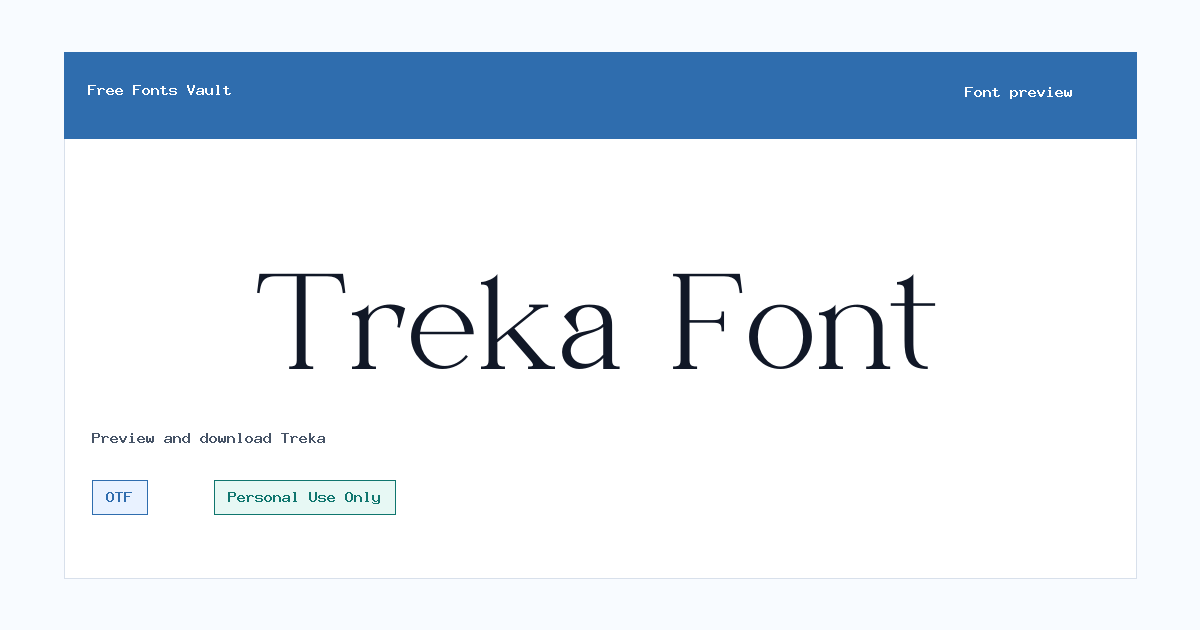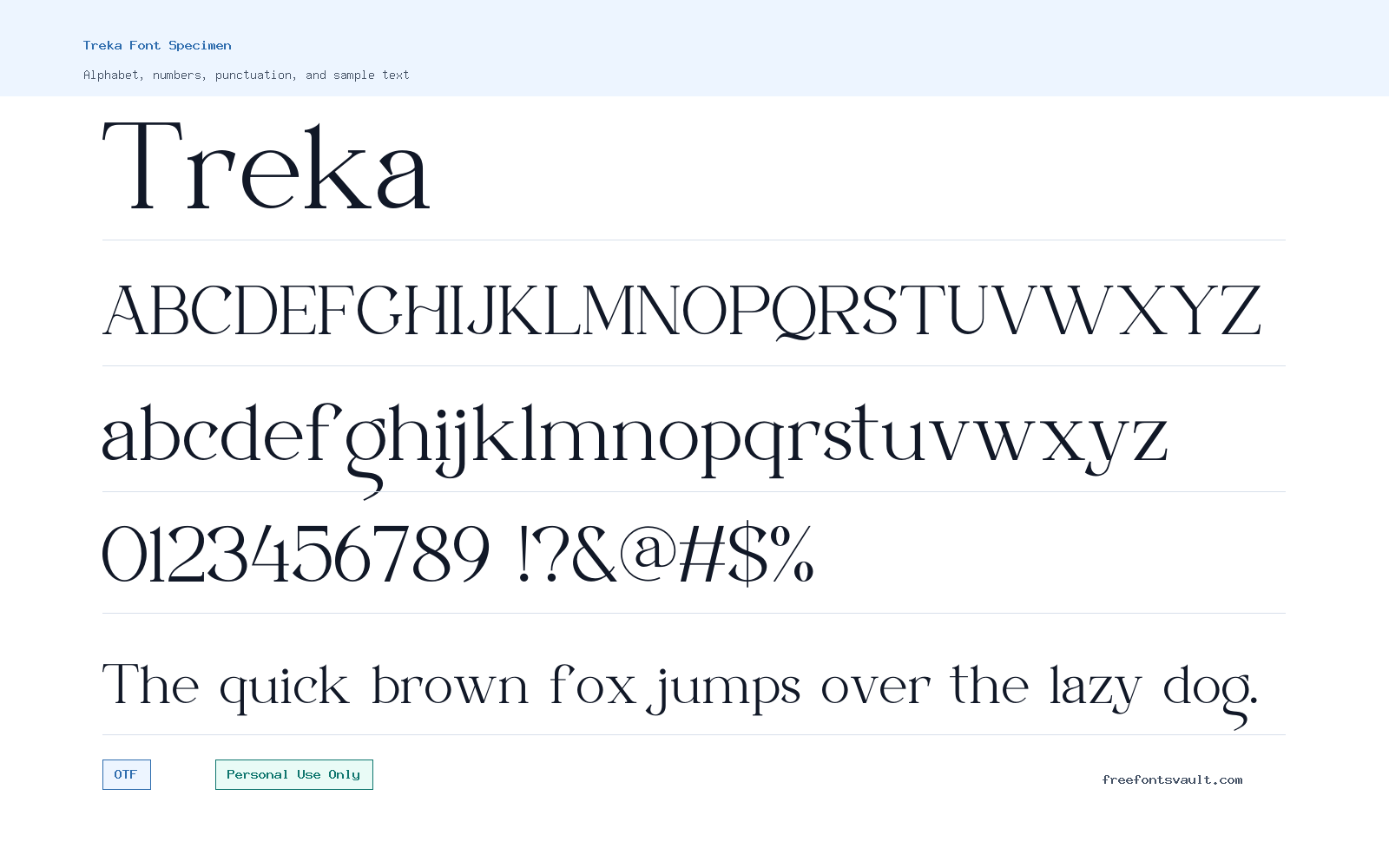
Treka
Treka font preview showing the family name
Treka Font
Treka font specimen showing alphabet, numbers, and sample text
Treka font.
Treka is presented as a serif font, which means it is likely to suit projects where letter shapes need a more traditional or editorial feel than a plain sans serif. Because only the regular style is listed, it is a simple one-style family rather than a large type system with bold, italic, or multiple weights. That makes it easy to test quickly, but it also means you should check whether the single weight has enough contrast and emphasis for your layout.
• Personal design mockups, quote graphics, and invitation drafts
• Short headings, names, labels, and display text previews